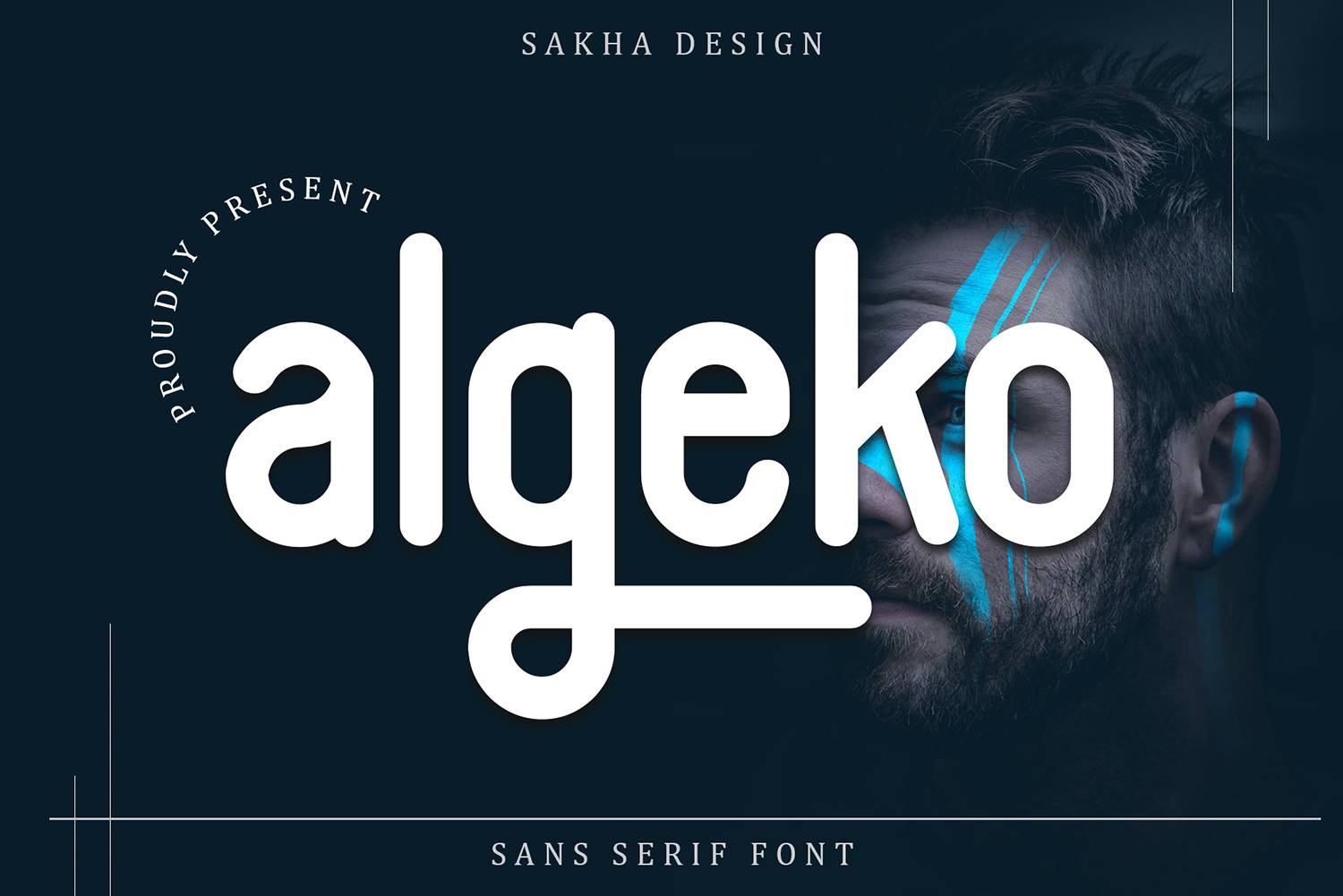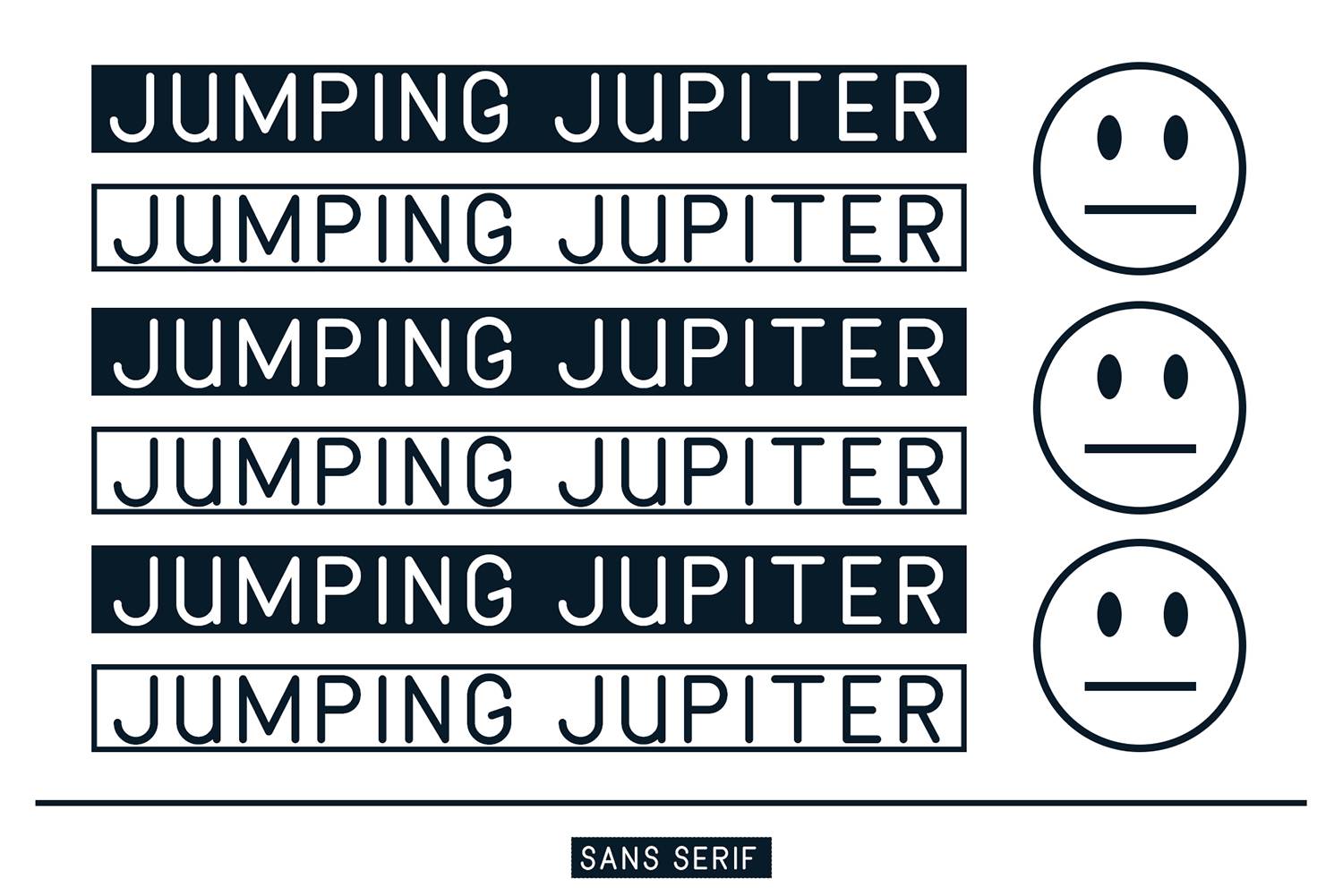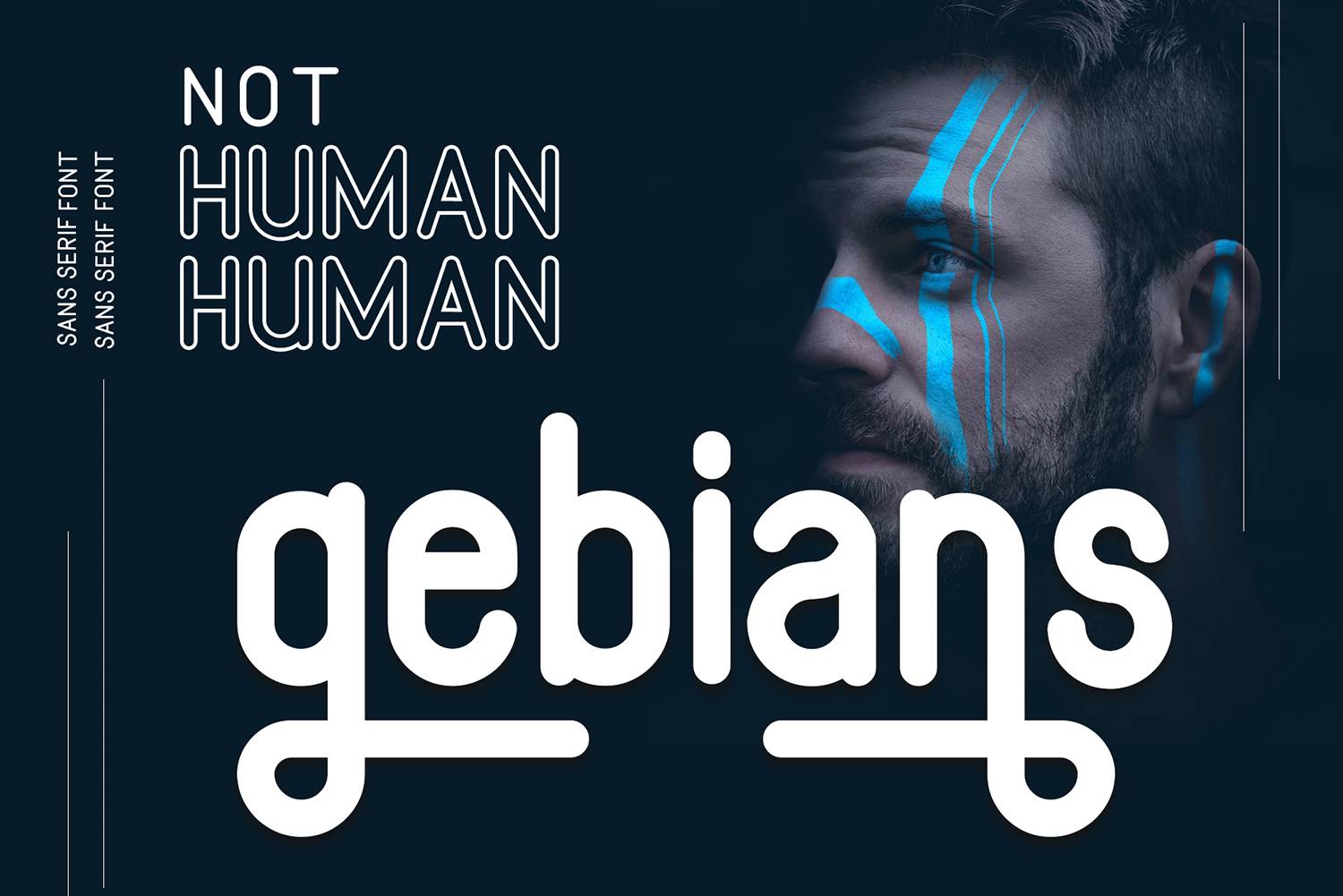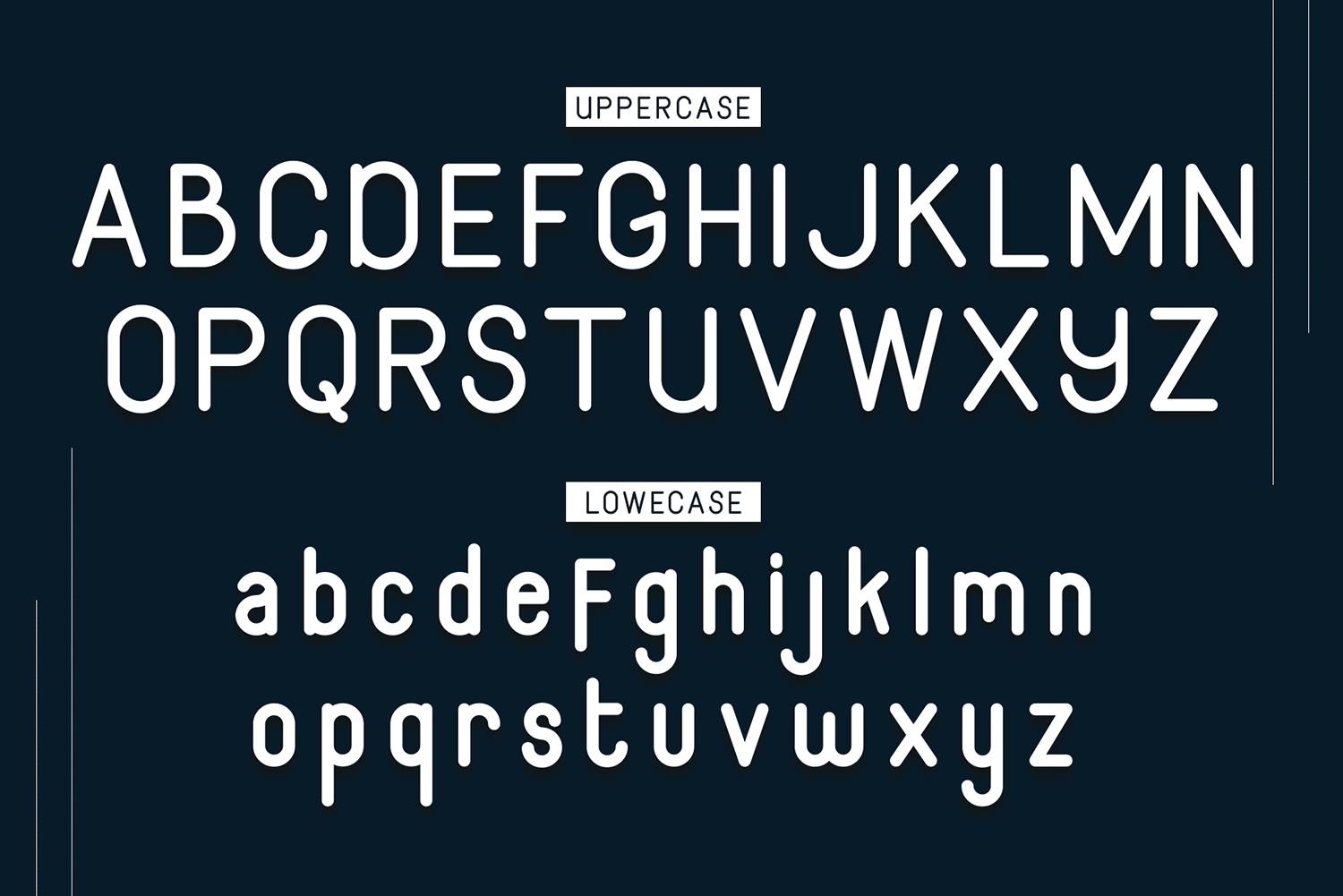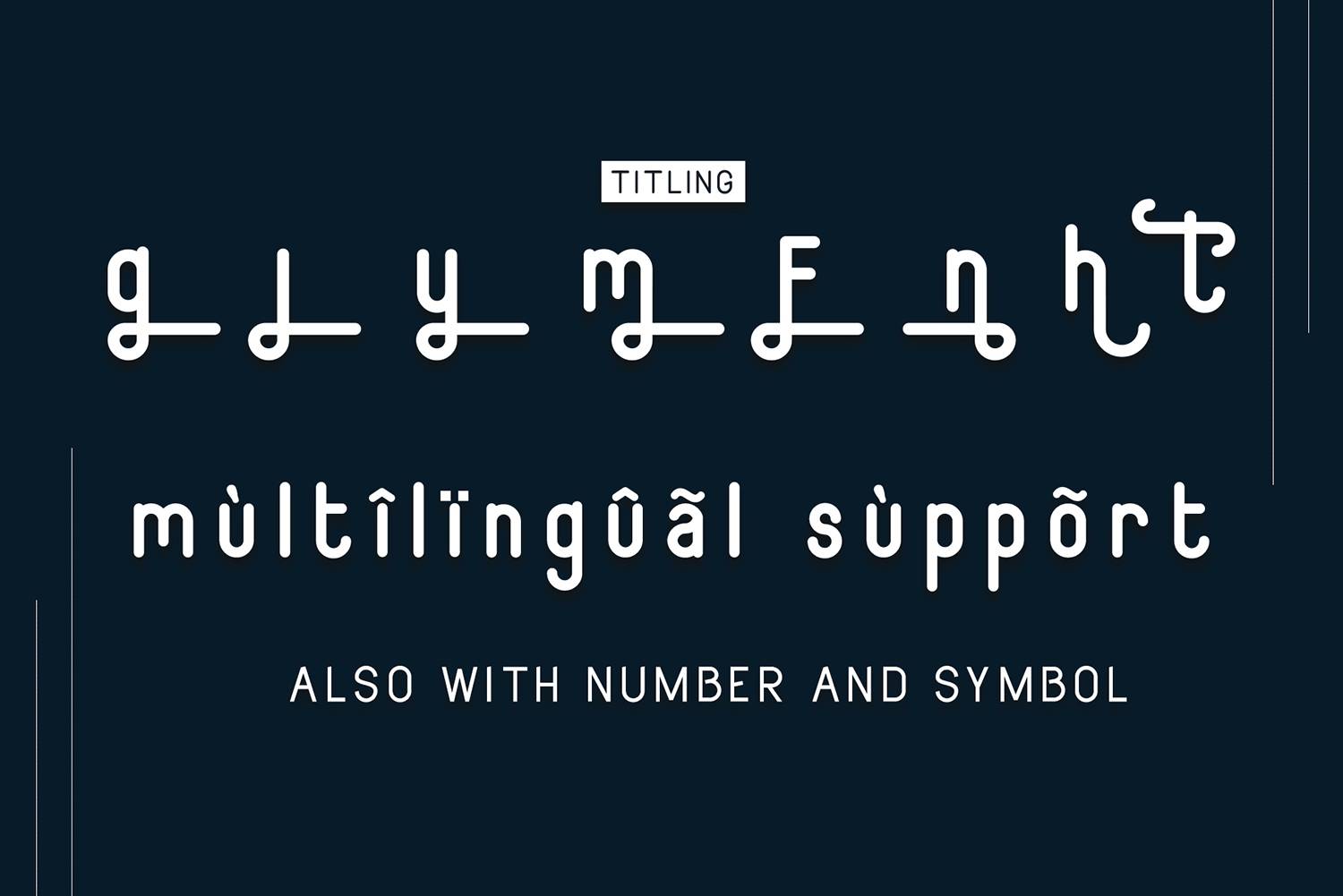
Algeko is a quirky, narrow sans serif font with a playful and modern character. Its consistent stroke weight, rounded terminals, and unique letterforms with slightly extended height give it a friendly yet distinctive feel, making it ideal for creative branding, headlines, and informal designs where personality matters. This font works well in contexts that want to convey approachability and fun without losing clarity or style.
Algeko Font
About Algeko Font